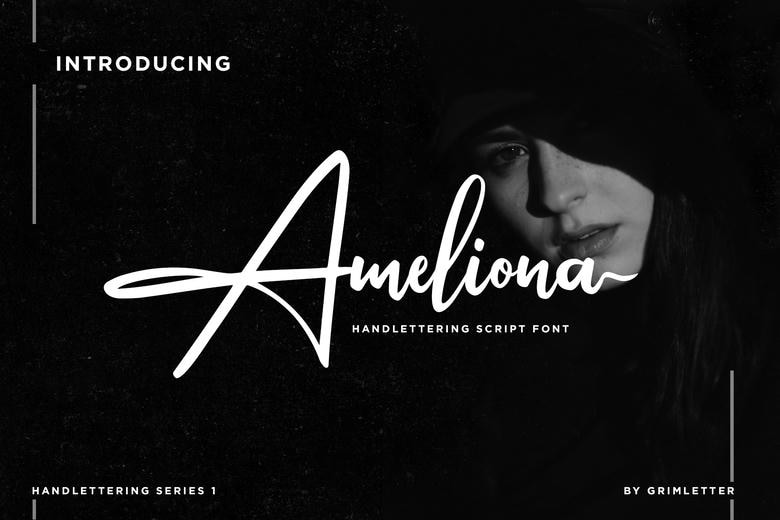
Ameliona Font
Ameliona is no less charming and graceful handwritten font. It appears beautiful on wedding invitations, thank you card, quote, greeting cards, logos, business cards and any other design that requires a hand written touch. It has an uneven base, soft lines, beautiful glyphs and beautiful alternates.
Ameliona Handwritten Script Font